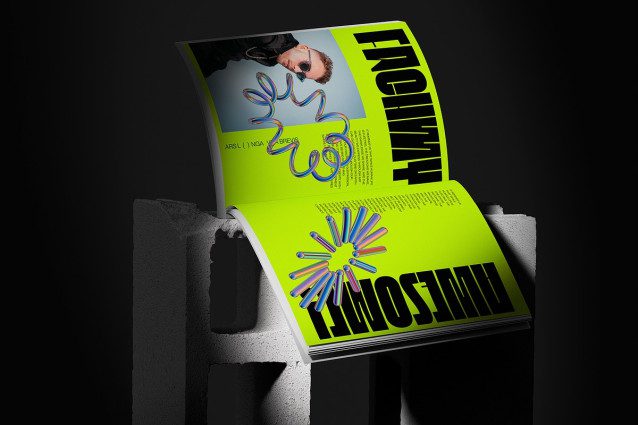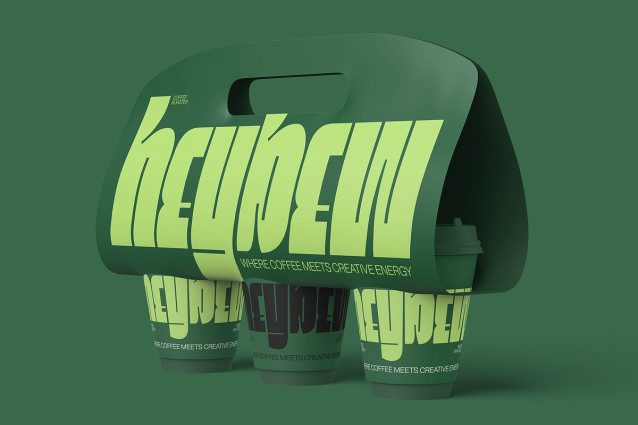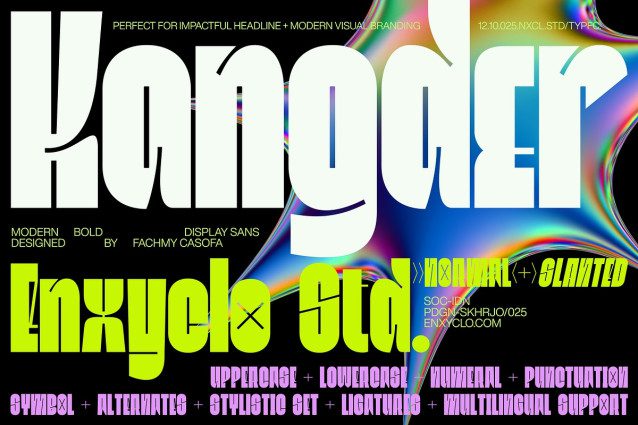
Kangder Font
Kangder Font is a modern, bold display font designed to make a strong visual impact in any branding or design project. This typeface features striking, wide letterforms combined with sharp edges, delivering a contemporary look that grabs attention instantly. Ideal for logos, headlines, and display use, Kangder brings a fresh and confident vibe to your creative work. With its versatile style, Kangder is perfect for designers looking for a font that stands out while maintaining a clean and professional appearance. Whether for modern branding, impactful headlines, or bold visual statements, this typeface offers robust support for crafting memorable and distinct designs.